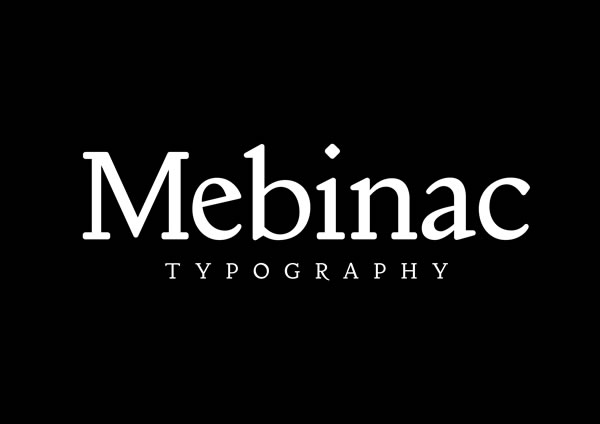
Mebinac Regular Font
Introducing Mebinac Regular, the serif font that will add a touch of elegance and sophistication to your designs. With its clean lines and timeless appeal, Mebinac Regular is perfect for creating logos, headlines, and other eye-catching text.
Created by renowned font designer Alan Hayward, Mebinac Regular is a versatile font that can be used for a wide range of projects. Whether you're working on a website, a print ad, or a social media post, Mebinac Regular will help you make a lasting impression.
**Here are just a few of the reasons why you'll love Mebinac Regular:**
* Its classic serif design gives it a timeless appeal.
* Its clean lines and open counters make it easy to read, even at small sizes.
* Its versatility makes it perfect for a wide range of projects.
**Here are a few creative ways to use Mebinac Regular:**
* Create a logo that will make your business stand out from the crowd.
* Design a website that is both informative and visually appealing.
* Create social media posts that will capture your audience's attention.
* Design a book cover that will make your book a must-read.
* Create a poster that will promote your event in style.